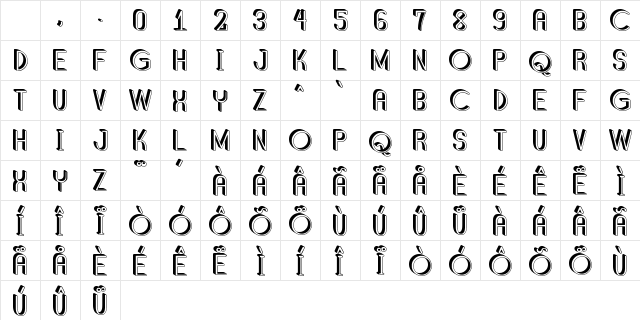
Shadded South is a composed and adaptable typeface that performs quietly and consistently across a wide range of design contexts.
Pro Tip: Use Shadded South in both headline and body roles to test its range before committing to a single application.